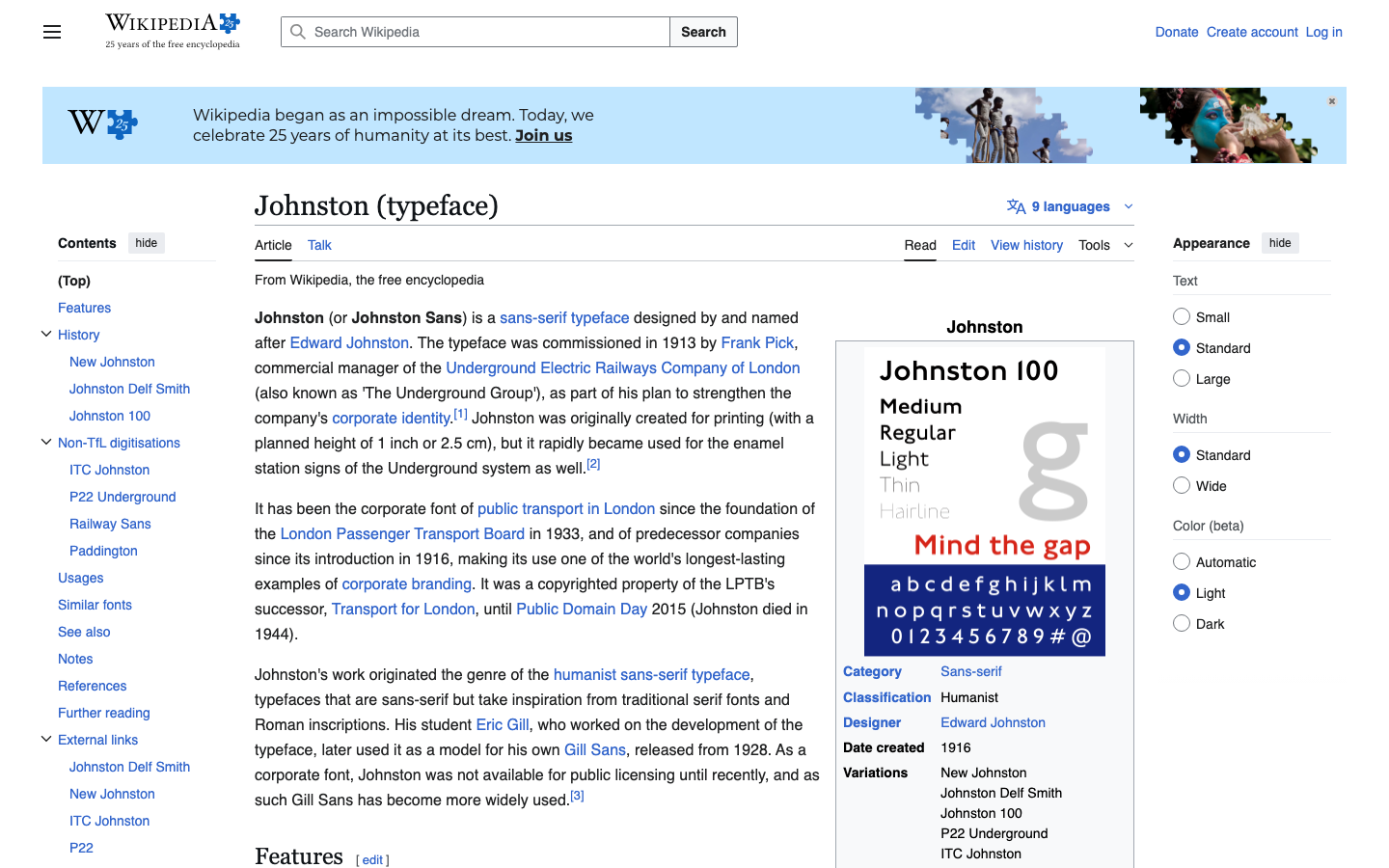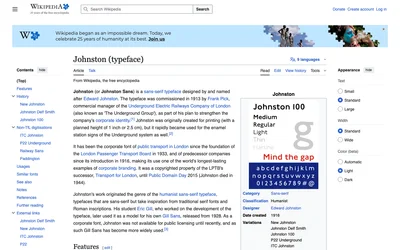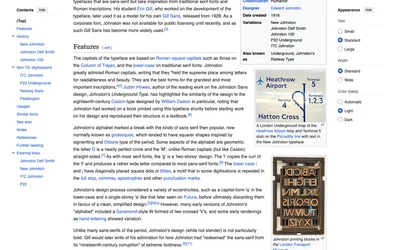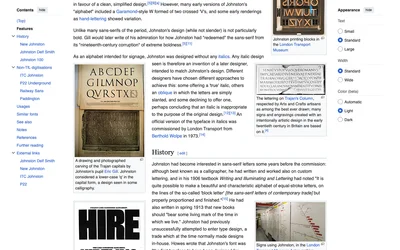
Clearview vs Johnston
Clearview and Johnston are both sans-serif typefaces sharing a humanist foundation. Where Clearview leans readable, Johnston brings branding. Compare which suits your Signage project.
Clearview
Humanist
Readable
Signage
Johnston
Humanist
SignageBranding
Clearview
Johnston
| Feature | Clearview | Johnston |
| Source | Terminal Design | ITC (International Typeface Corporation) |
Signage
Clearview Johnston
Wayfinding
Typography for navigation systems, directional signage, and environmental graphi...
Clearview Johnston
Transit
Clearview Johnston
Highway
Clearview Johnston
Recommended: Clearview
- readable design character
- Suited for Highway
Consider: Johnston
- branding design character
- Suited for Branding